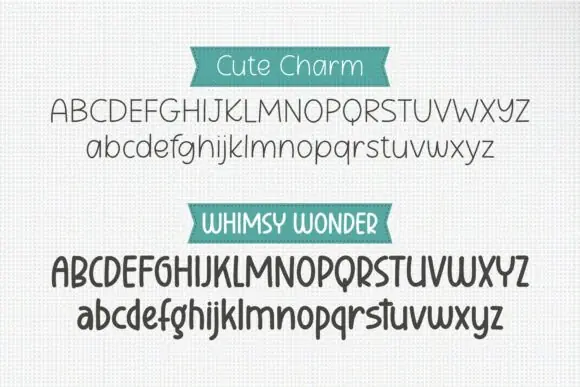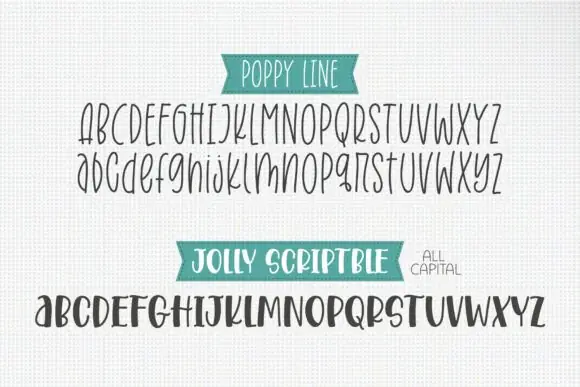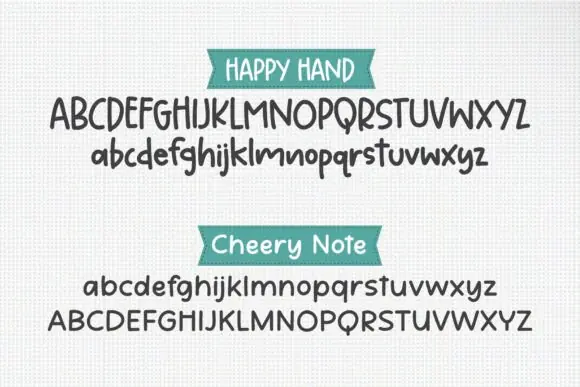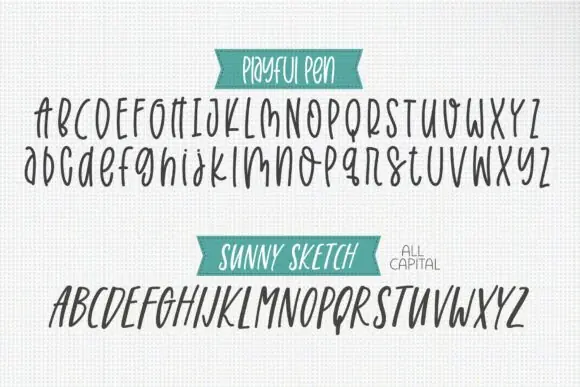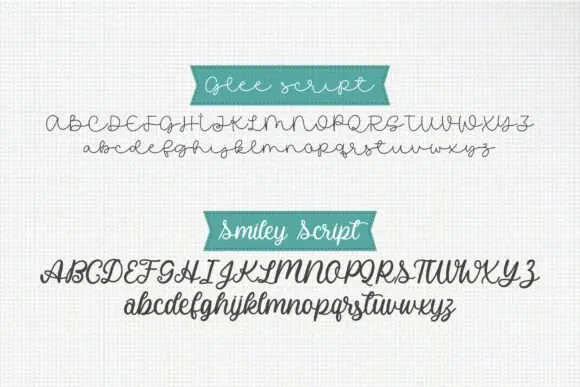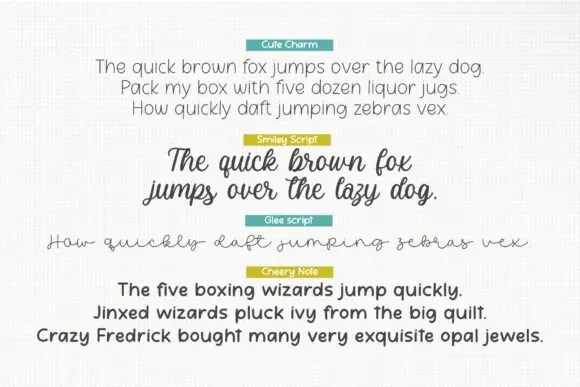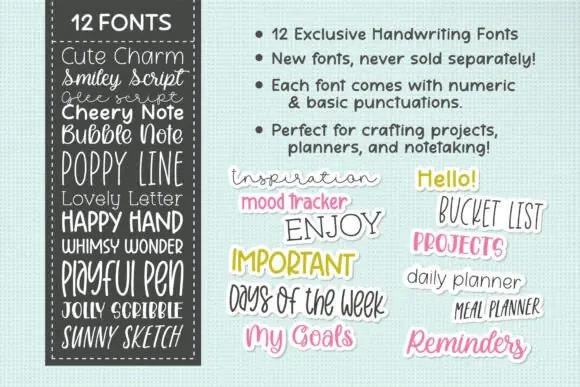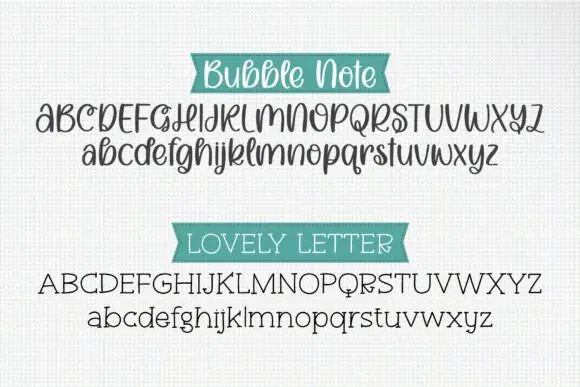
The Cute Handwriting Bundle | 12 Exclusive Handwritten Fonts for Journaling, Crafts, Digital Planners, Quotes, Branding, Stickers & Creative Designs
Add charm, warmth, and personality to your designs with The Cute Handwriting Bundle, a beautiful collection of 12 exclusive handwritten fonts created for crafters, designers, journal lovers, content creators, and small business owners. Each font in this bundle has a unique handwritten style, making it easy to create designs that feel personal, playful, and full of character.
This font bundle is perfect for anyone who loves cute, casual, and handmade-style typography. Whether you are designing digital planner pages, journal templates, stickers, social media graphics, greeting cards, quote prints, branding materials, invitations, labels, or DIY craft projects, these fonts help bring your creative ideas to life with a soft and friendly handwritten look.
Because the fonts are exclusive and not sold separately, this bundle gives you a special collection that can be used across many different types of creative projects. From cozy journaling layouts to cute product packaging and printable designs, this bundle is a great choice for building a consistent, handmade aesthetic.
• Digital planners
• Journaling pages
• Printable stickers
• Quote designs
• Greeting cards
• Invitations
• DIY craft projects
• Scrapbooking
• Canva designs
• Procreate lettering projects
• Cricut and Silhouette crafts
• Small business branding
• Labels and packaging
• Handmade product designs